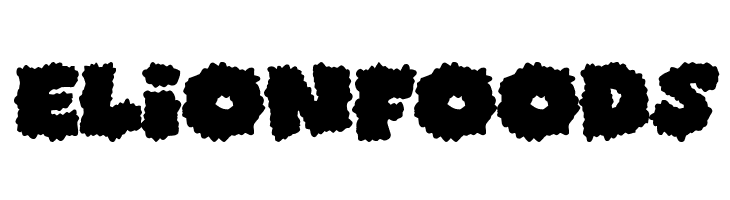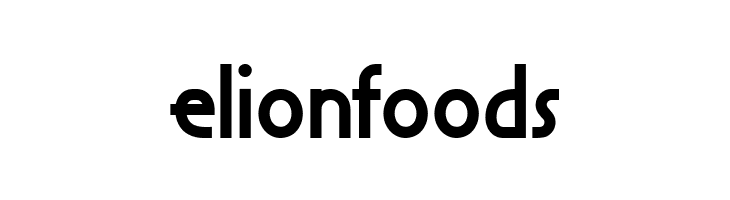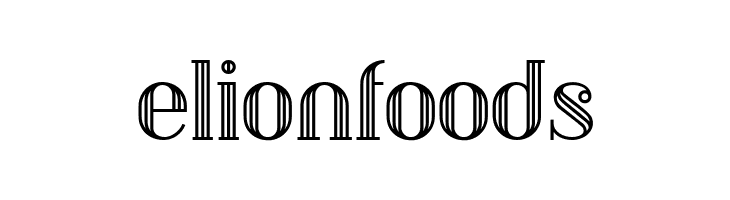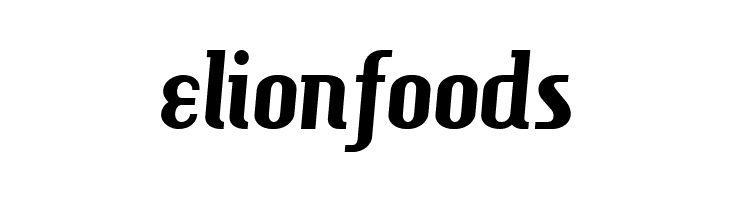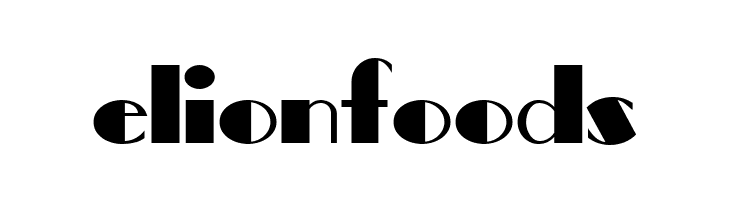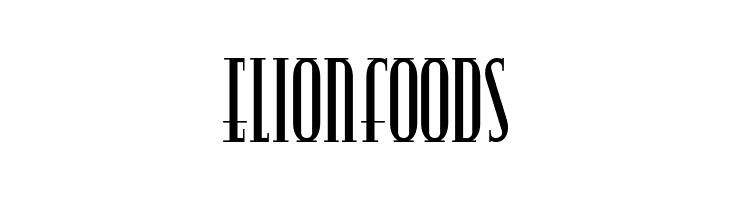
• Shoplifters unite
A bold, textured font with a playful, cloud-like appearance.
• Snappy Service NF
A bold, geometric font with a modern and dynamic style.
• Debonair Inline NF
A decorative inline font with a modern and elegant style.
• Hamburger Heaven NF
A bold, slanted font with a dynamic and energetic style.
• Big Apple NF
A bold, geometric font with high contrast and striking visual impact.
• Fortune Cookie NF
A geometric and angular font with a modern, artistic flair.
• Points West NF
A bold, elongated serif font with a modern and elegant style.
• Tara Bulbous NF
A bold, rounded font with a playful and modern design.
• BurgerDoodleNF
A bold, geometric font with a playful, retro vibe.
• Lakeshore Drive NF
A bold, geometric font with a vintage yet modern appeal.